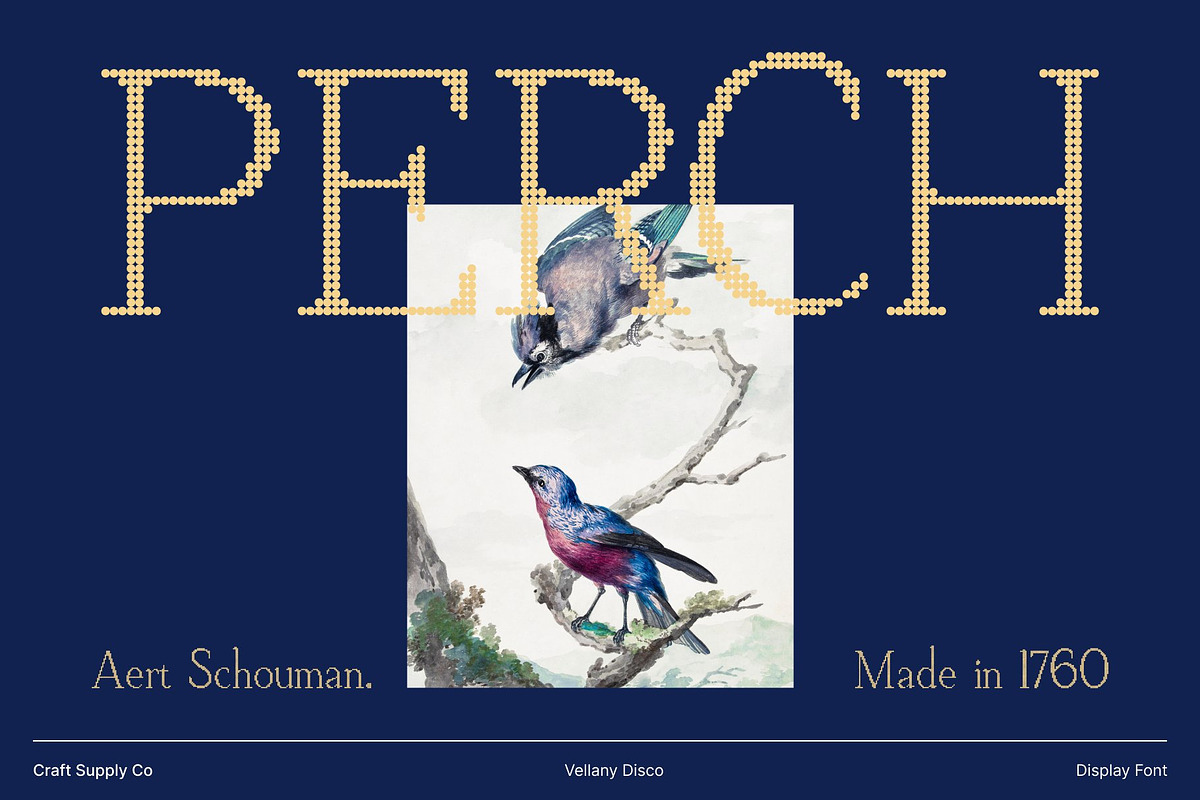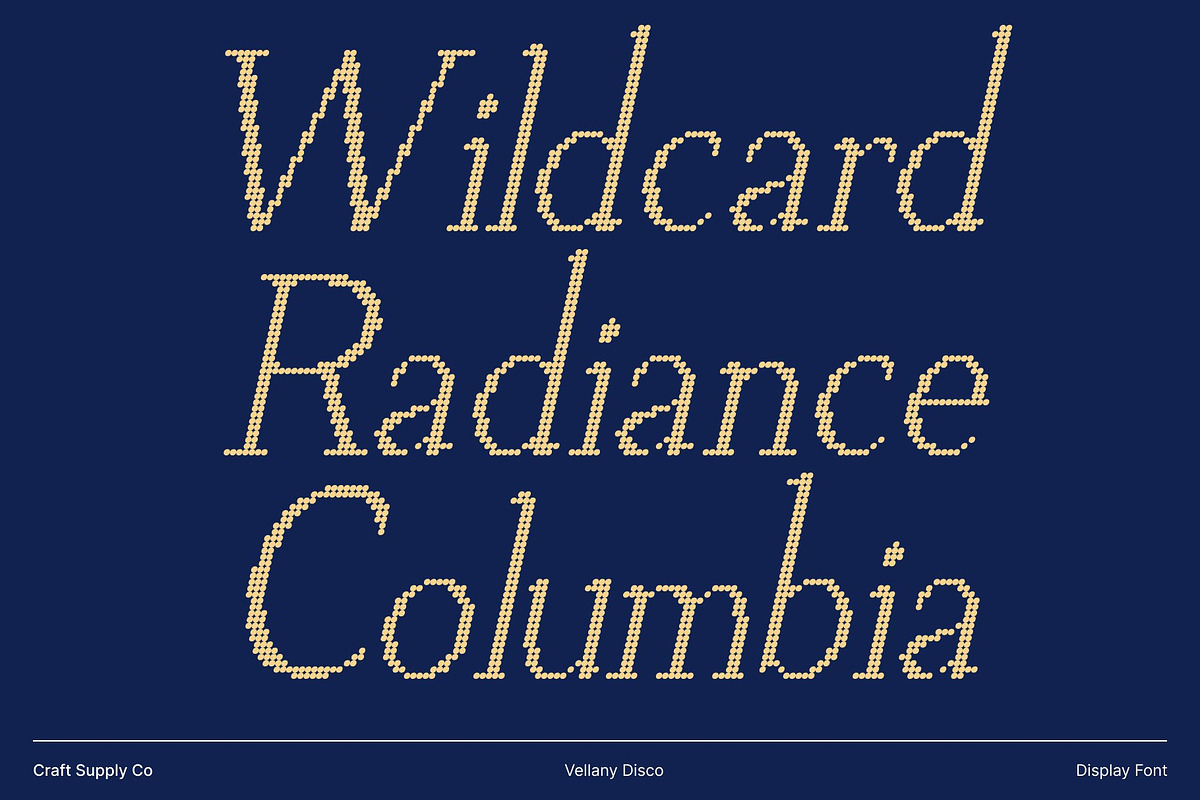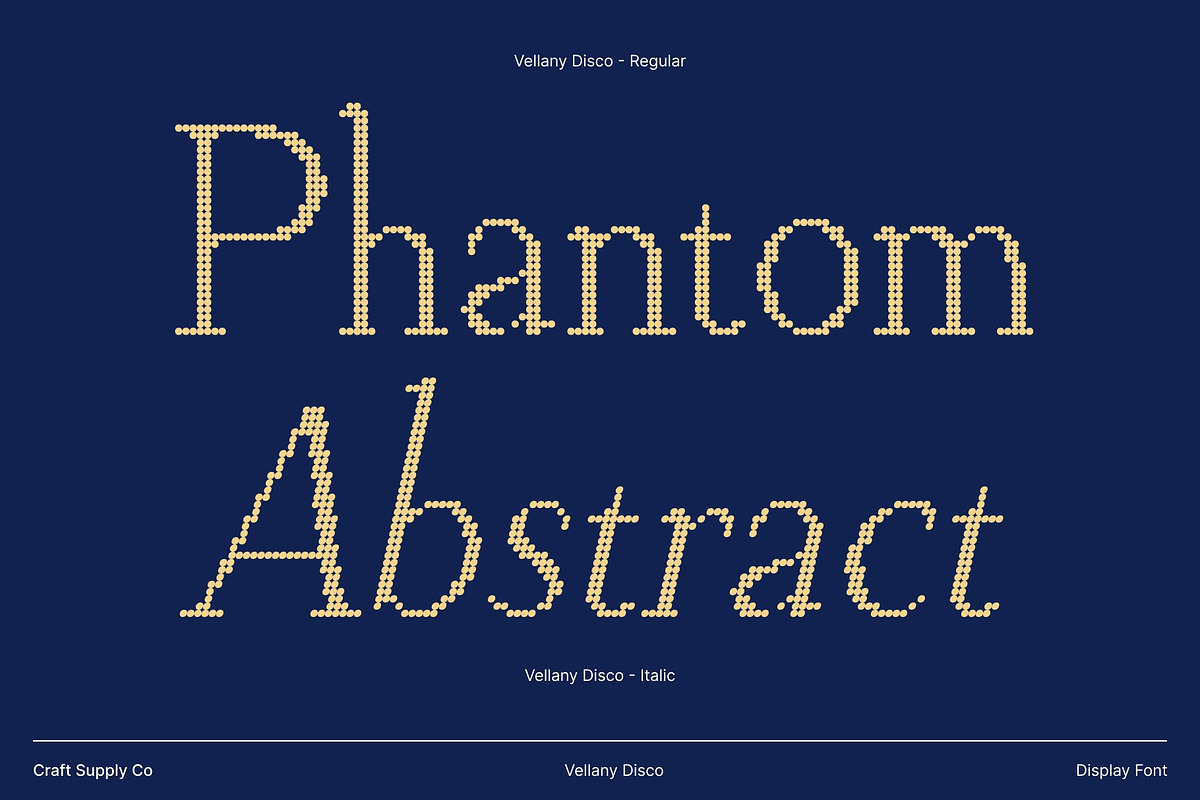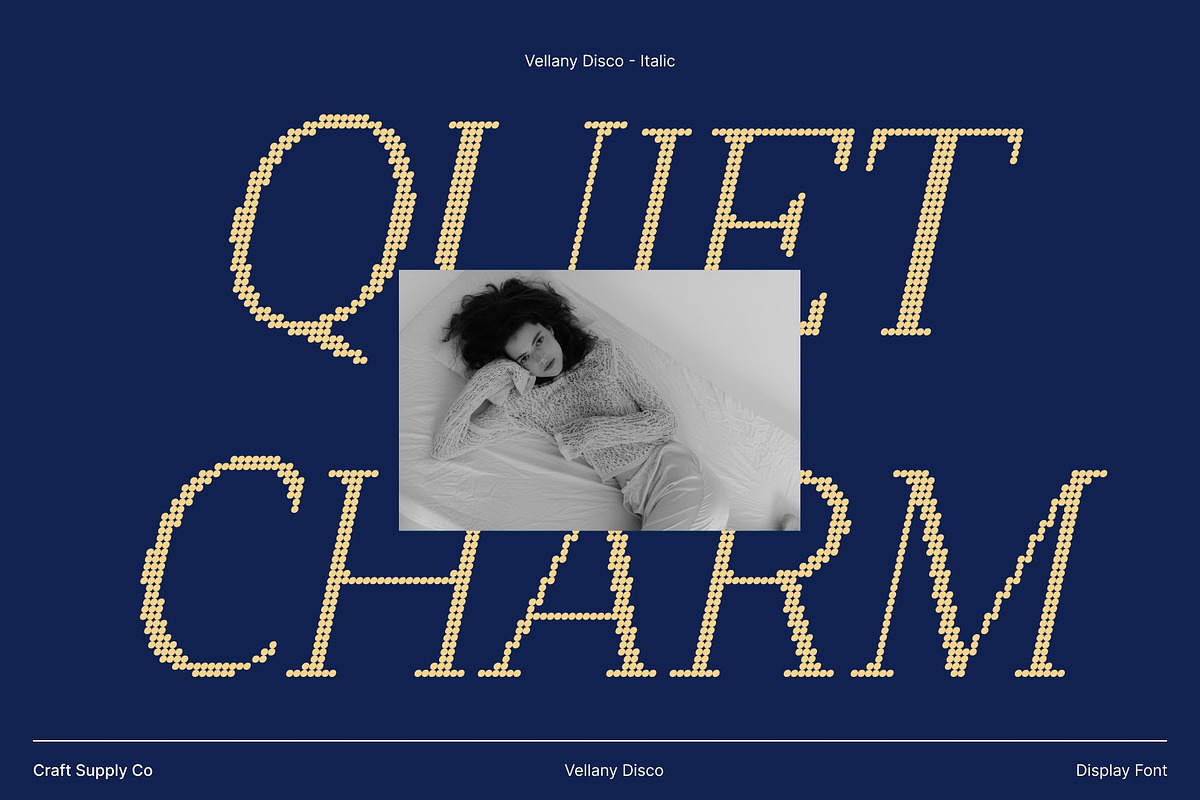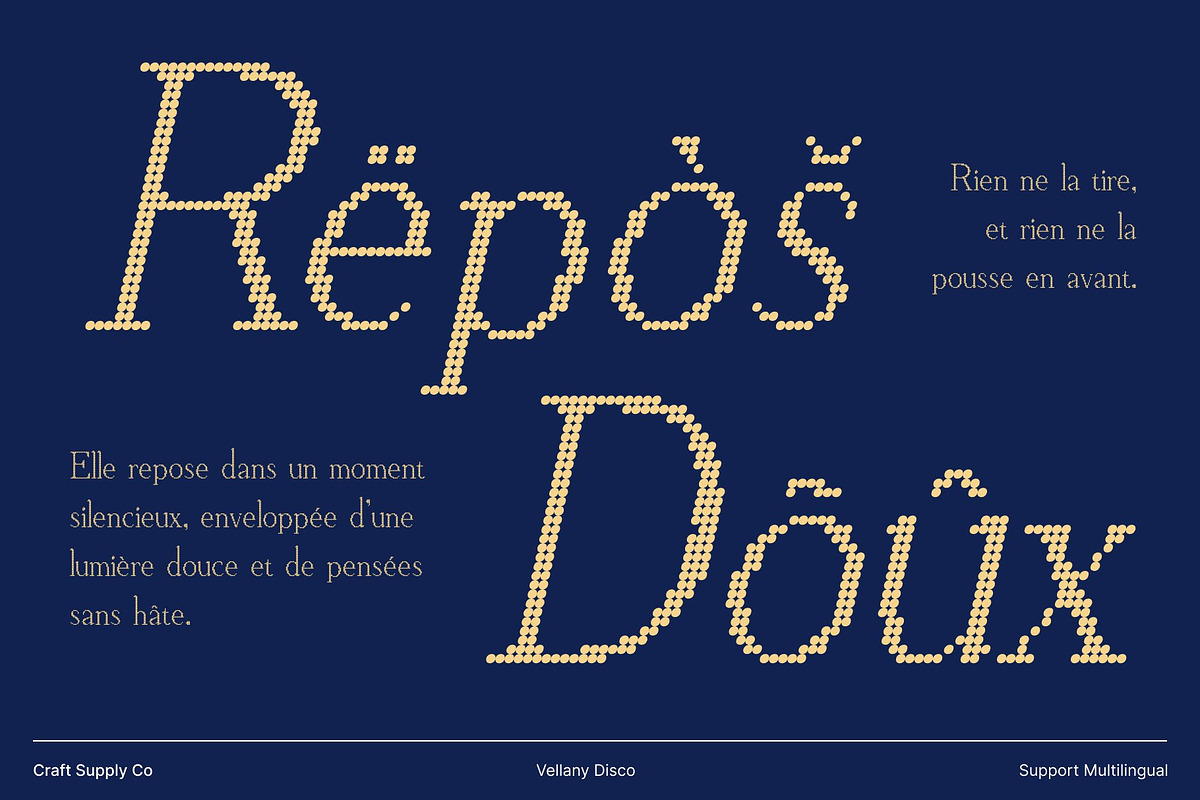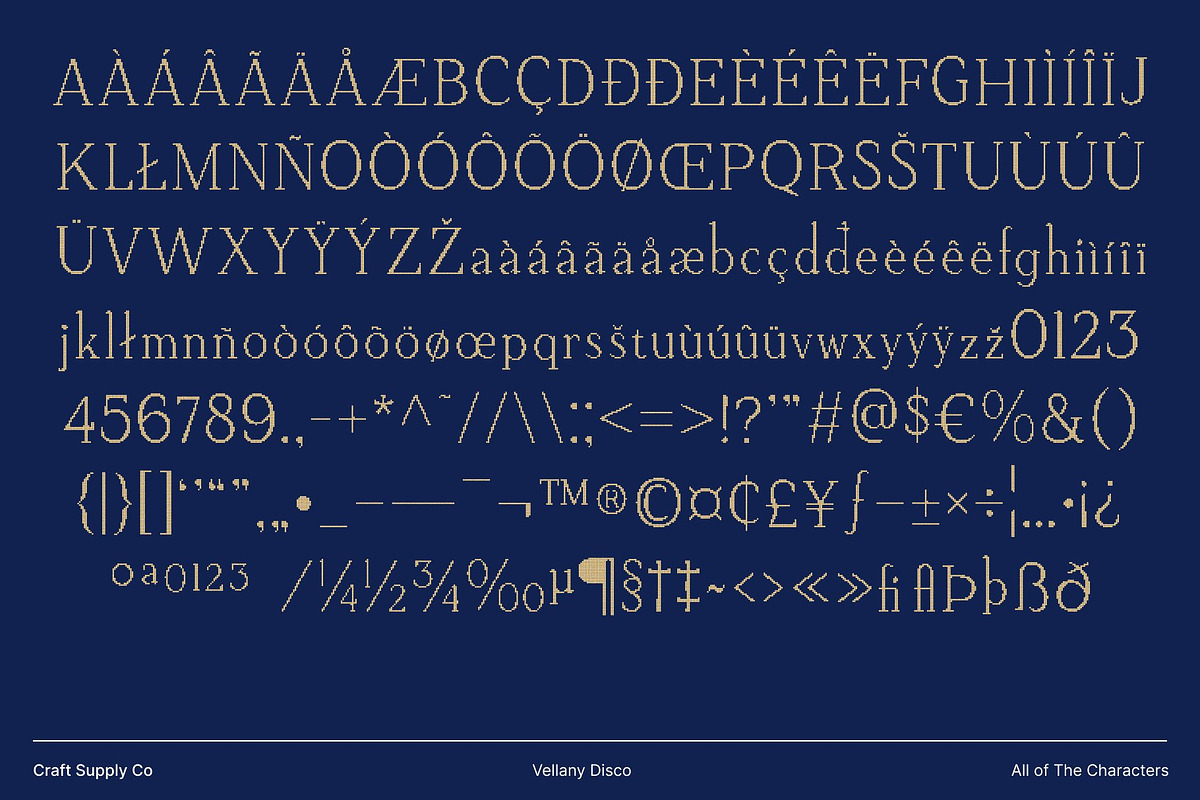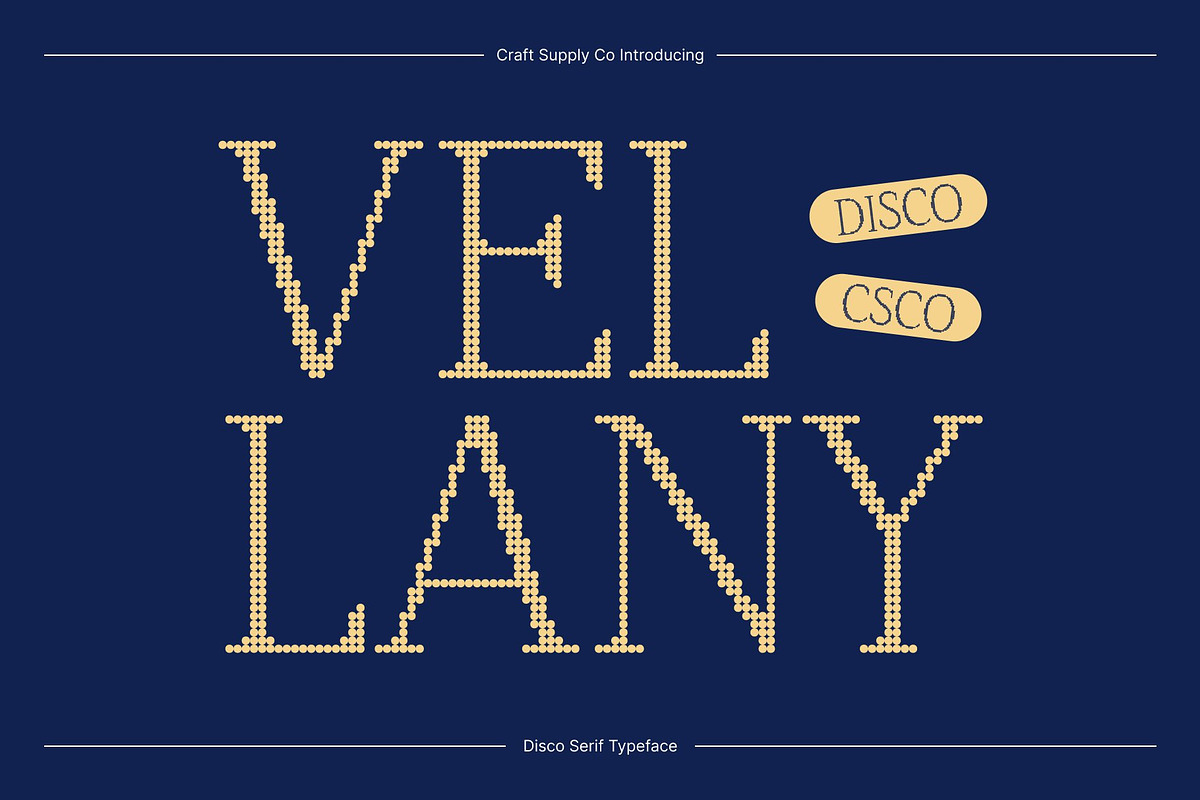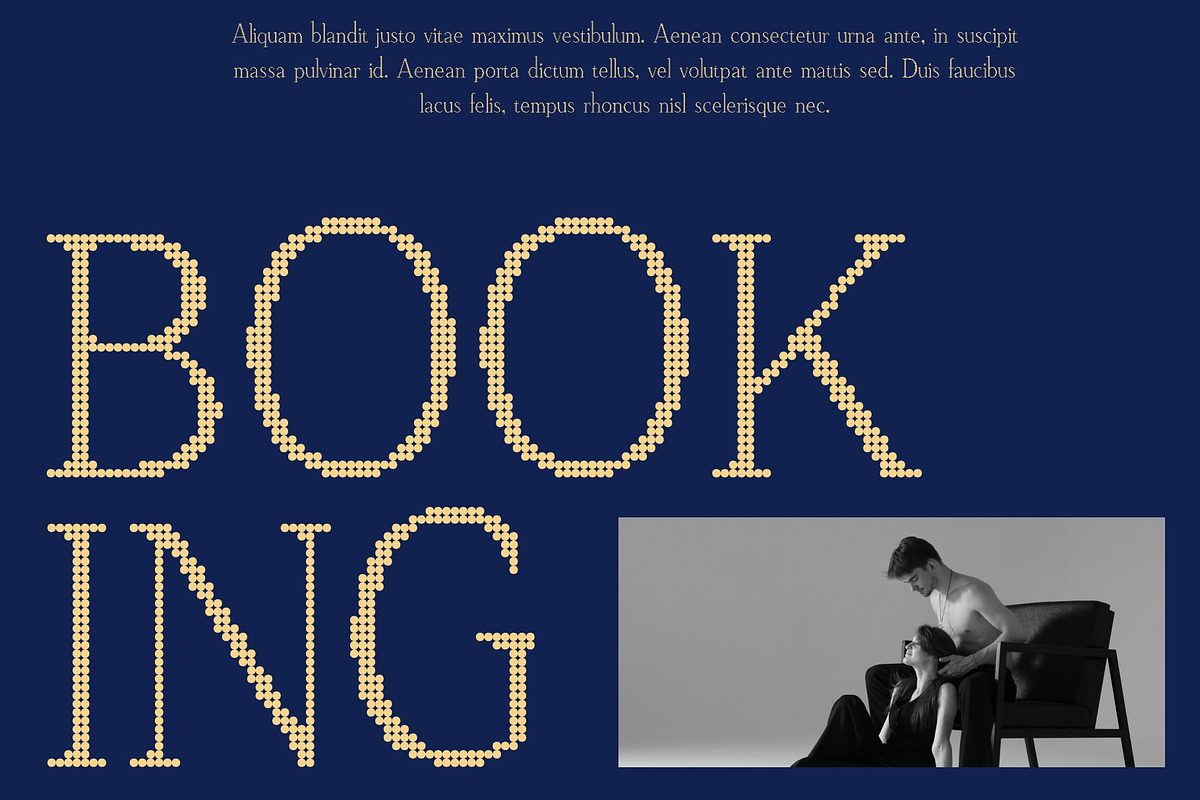
Vellany Disco
Vellany Disco – Elegant Renaissance Serif with Glamorous Disco Sparkle
Timeless Elegance with Refined Renaissance Influence This is an elegant serif font crafted with refined curves inspired by classic Renaissance typography. Its graceful shapes, balanced proportions, and luxurious details create a sophisticated and high-end appearance. This timeless influence gives the font a cultured, polished presence perfect for designers seeking elegance rooted in historical beauty.
Graceful Curves for a High-End Aesthetic Each letterform features smooth, sculpted curves that enhance readability while adding a touch of artistic finesse. This font’s refined silhouette makes it ideal for premium layouts, providing a harmonious blend of tradition and modern stylistic clarity. Its aesthetic charm makes every composition feel elevated and professional.
Disco Sparkle Effect for Glamour and Visual Brilliance Adding a modern twist, the disco sparkle effect brings shimmer, energy, and radiance to the typeface. This glamorous detail transforms the classic serif shapes into visually captivating forms, giving your designs a sense of movement and vibrancy. The combination of Renaissance elegance and sparkling flair creates a unique, eye-catching sophistication.
Perfect for Editorials, Logos, and Branding Projects This font excels in editorials, logos, luxury branding, packaging, invitations, and creative promotional designs. Whether you’re crafting an upscale identity, a refined headline, or a stylish publication layout, this font delivers both timeless charm and dazzling modern energy.
- Vellany Disco Regular
- Vellany Disco Italic